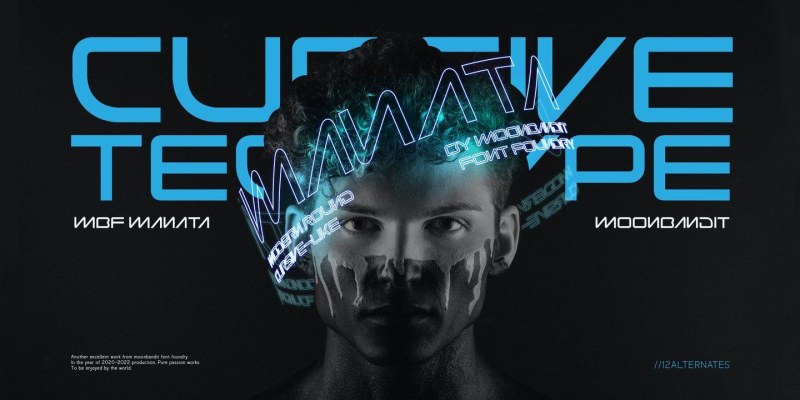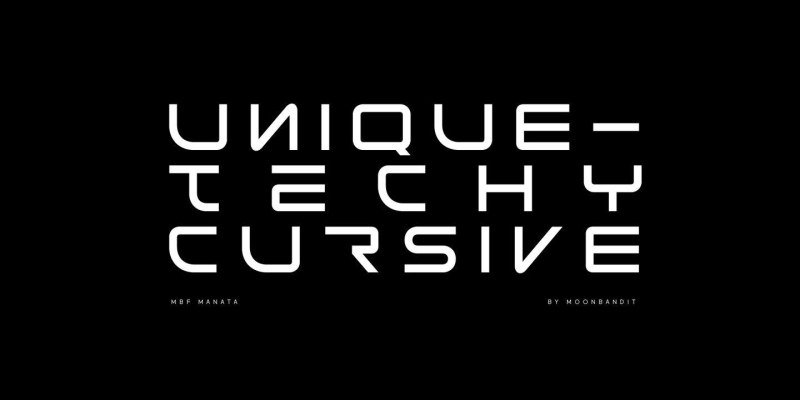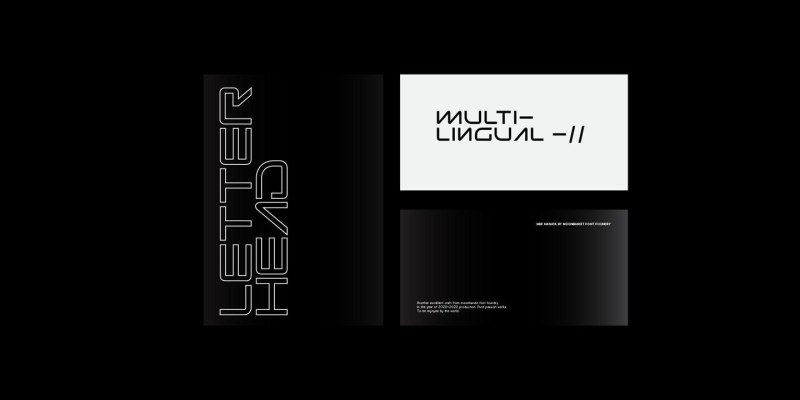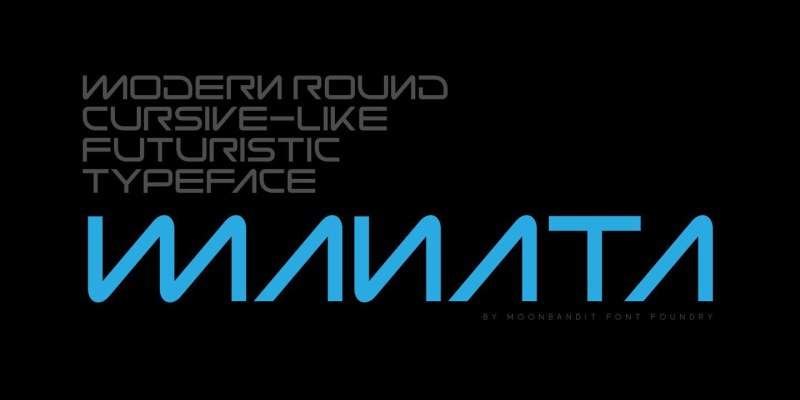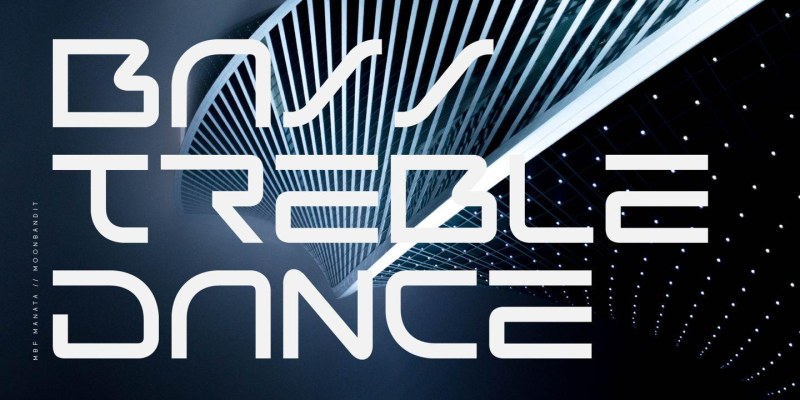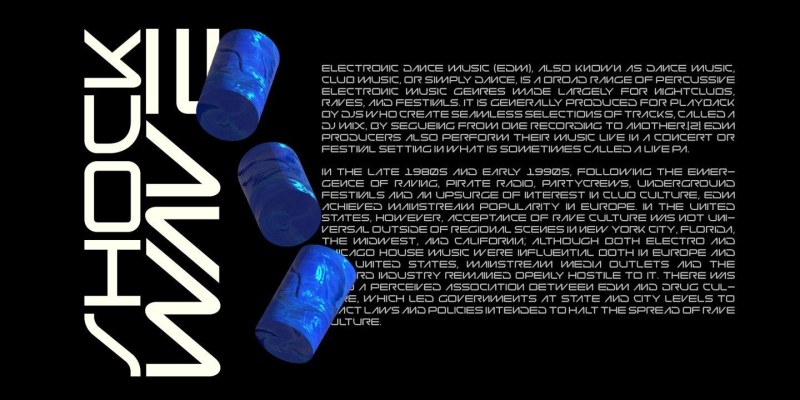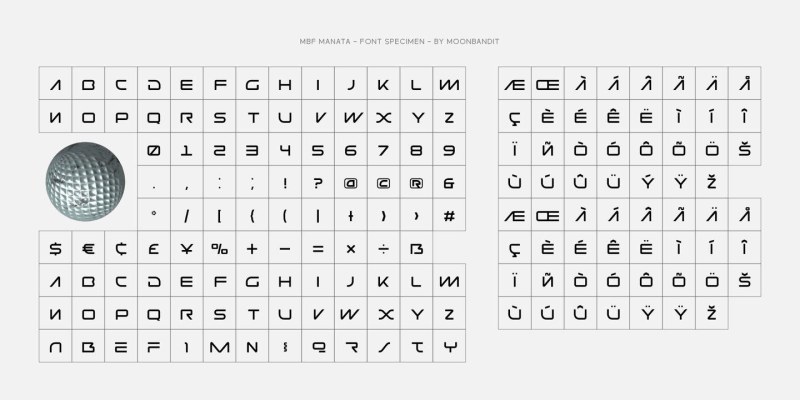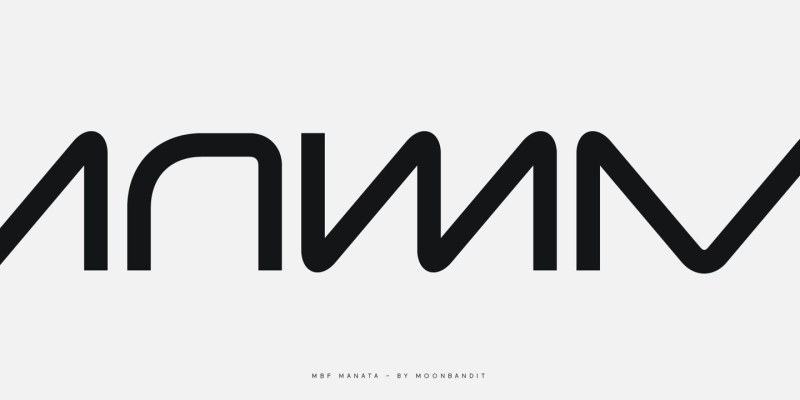
MBF Manata Font
Manata is a modern futuristic semi-cursive font. This typeface has a unique angle spreading through each glyphs to enhance dynamic and flow. Combined with straight and s…
Manata is a modern futuristic semi-cursive font. This typeface has a unique angle spreading through each glyphs to enhance dynamic and flow. Combined with straight and sharp stem to balance the overall feel and readibility. Perfect usage for large size display, title, poster, logotype and body text. Manata also support multilingual and have several alternate glyphs.
Where MBF Manata Font works best
Startups & tech
MBF Manata Font fits product landing pages, app stores and pitch decks with a contemporary feel.
Architecture & real estate
Modern geometric forms suit property brochures, signage and portfolio sites.
Corporate identity
A modern typeface keeps annual reports and presentations clean and current.
What is MBF Manata Font good for?
MBF Manata Font is a Modern Fonts typeface tagged Display, Modern, Modern Fonts, Poster. It works well for headlines, logos, posters, social media graphics and branding projects that need a distinctive modern fonts look.